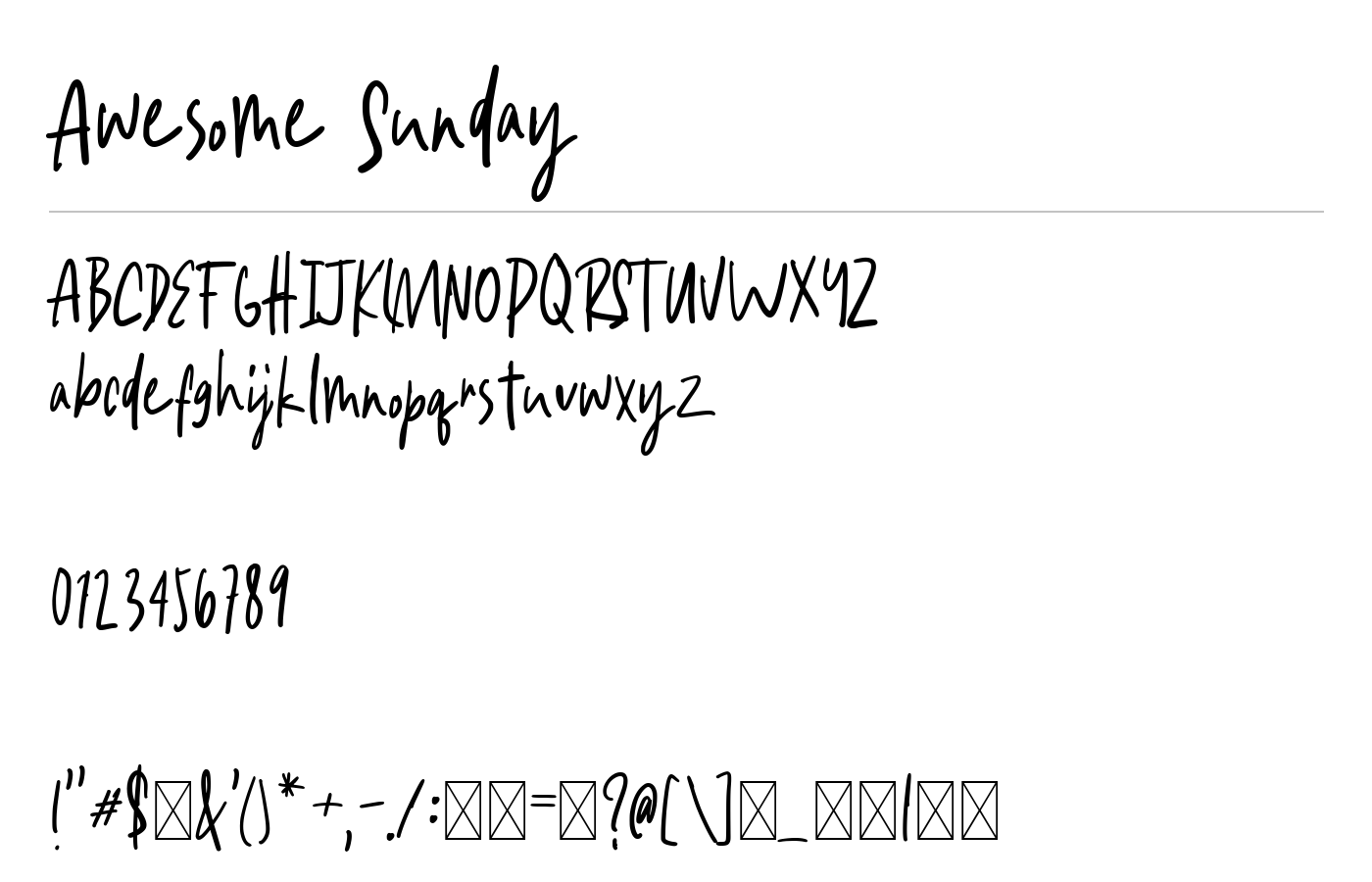
Awesome Sunday is a playful, handwritten sans serif font with a casual, lively personality that feels fresh and approachable. Its tall, narrow letterforms and slightly irregular strokes give it a spontaneous, authentic vibe perfect for creative projects, branding, and editorial headlines that want to convey warmth and energy. This font works well in designs needing a personal, informal touch with a modern edge.
Awesome Sunday Font
About Awesome Sunday Font
| Designer | M Arif Dwi Prasetyo & Eko Nur Cahyo |